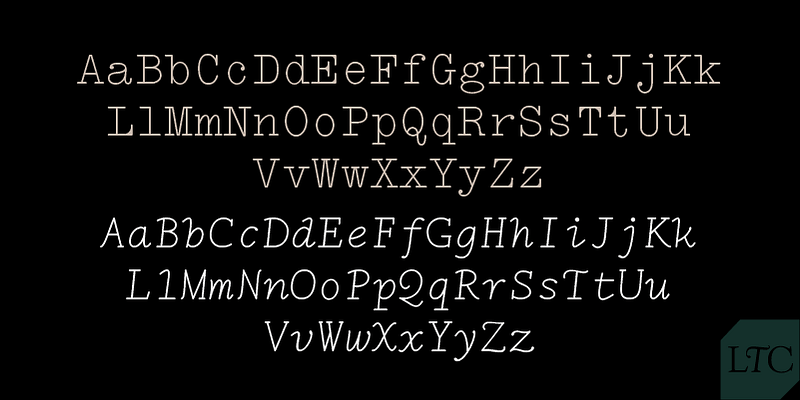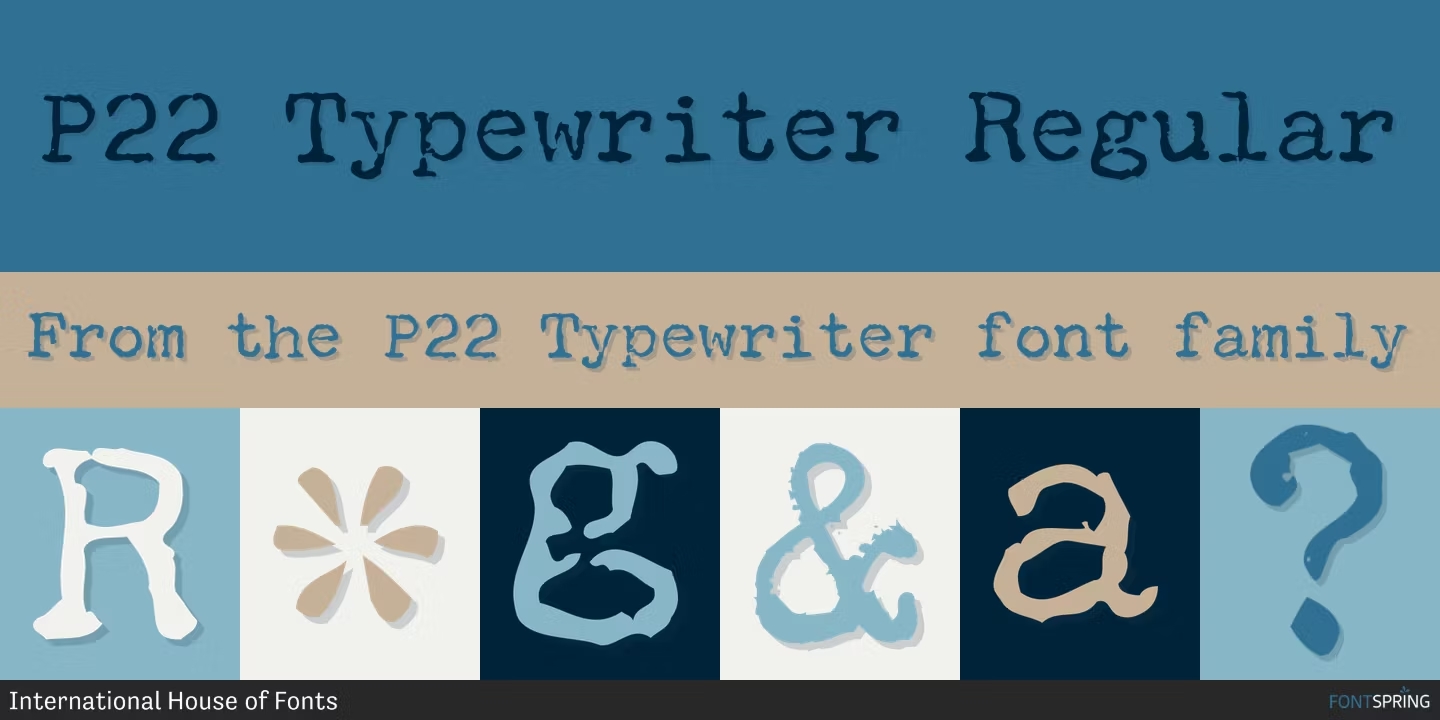
The best typewriter fonts are a great way to add vintage character and texture to design projects. Whether you're going for a classy old-time feel or a playful edge, these retro typefaces are a perfect way to add a visual appeal to your work. Courier may be the most famous typewriter font, but there are plenty of others out there to explore.
The best typewriter fonts
01. Love Letter
Kicking off our list is this romantic typewriter font created by Dixie's Delights. Love Letter's delightfully imperfect forms provides a rustic feel that can give projects a comforting vintage look, perfect for adding a sentimental human touch.
Love Letter harks back to a time when typewriters were used to spill out our feelings for our loved ones. Reach for this most amorous of free typewriter fonts if you want to put a bit of old-school passion into your designs.
02. CarbonType
CarbonType is a stylish grungy typewriter font that's scanned directly from letters produced by a Samsonite typewriter. It can give projects an authentically worn feel that's effortlessly cool. The best thing is it's completely free to use. Use it for posters and projects that need a bit of edge.
03. Thesis Typewriter
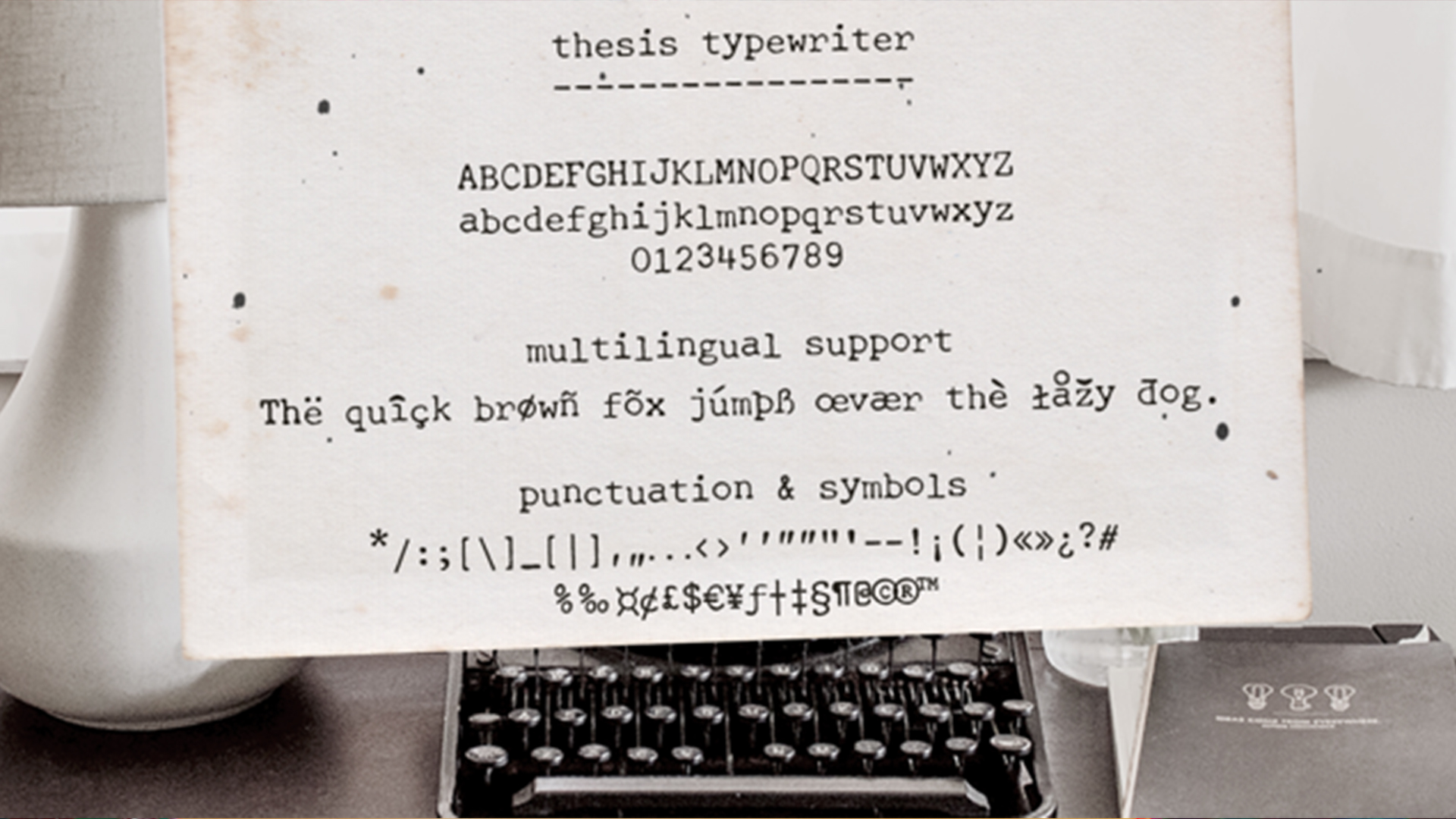
Thesis Typewriter typeface from Ana's Fonts comes in three styles (Weary, Regular and Bold) sampled from three different theses and reports from the 60s and 70s. That makes it versatile and able to suit a multitude of projects, from vintage designs and digital collages to branding and packaging.
04. Detective
Handcrafted Detective is an eccentric and nostalgic typewriter font perfect for projects that require an element of mystery. What we like about this font is the fact that not all the letters are uniformly straight, meaning it gives an authentic and playful feel for a subtle, personal quirkiness.
05. Bohemian Typewriter
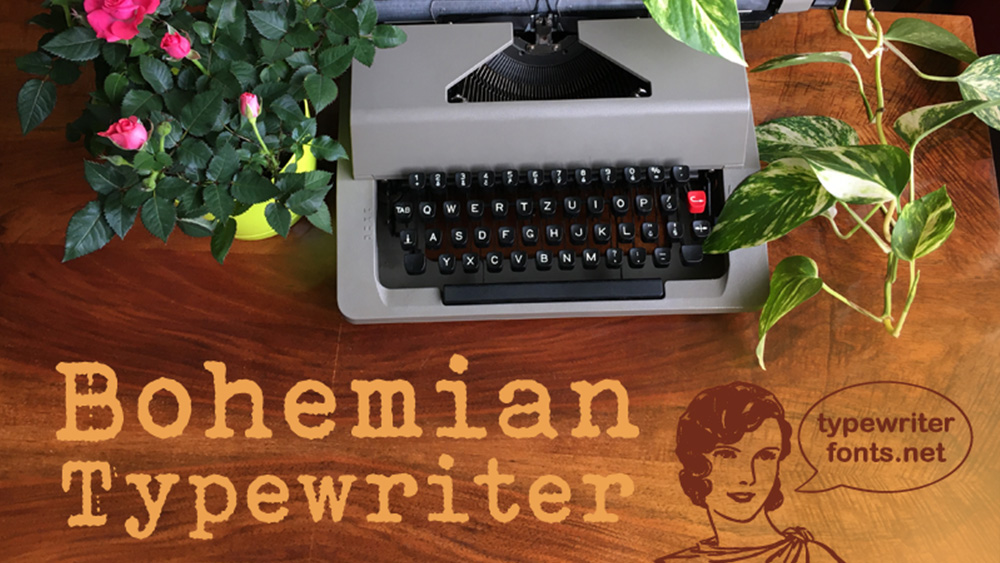
Created by typewriter typeface specialist Lukas Krakora, this typewriter font was used in captions in the movie Greyhound with Tom Hanks and in Oliver Stone's The Untold History of the United States documentary series. It feels authentically inky, recalling old inked cloth typewriters while maintaining legibility.
06. Letter Gothic
Typewriter fonts aren't all about creating the distressed uneven ink look. Roger Roberson designed the sleek Letter Gothic for IBM in the early '60s. It has flat monospaced sans serif lettering, which is clean and beautiful. This cleaner typewriter typeface is available in a variety of different weights.
07. Scripter Serif
Here's another nice and clean typewriter font, but this one's a serif. It's highly legible, making it more suitable for logo and branding work but still has a clear typewriter feel. The clean lines make it feel more modern, so it's not necessarily one for creating a vintage look, but more the timeless elegance offered by a typewriter typeface.
08. Olivetti Typewriter
Created by designer Iza W, this classic typewriter typeface is great for mimicking the look of older typewriters but with a relatively crisp and neat execution. It's available in five different weights, including a less-usual shadowed version, making it a flexible family to work with.
09. Courier M
A version of the classic Courier font, Courier M is a complete typewriter typeface with bold and oblique fonts as well as regular. Designed by Howard Kettler in 1956 and released by font foundry URW, it's a clean, classic lightweight typewriter font.